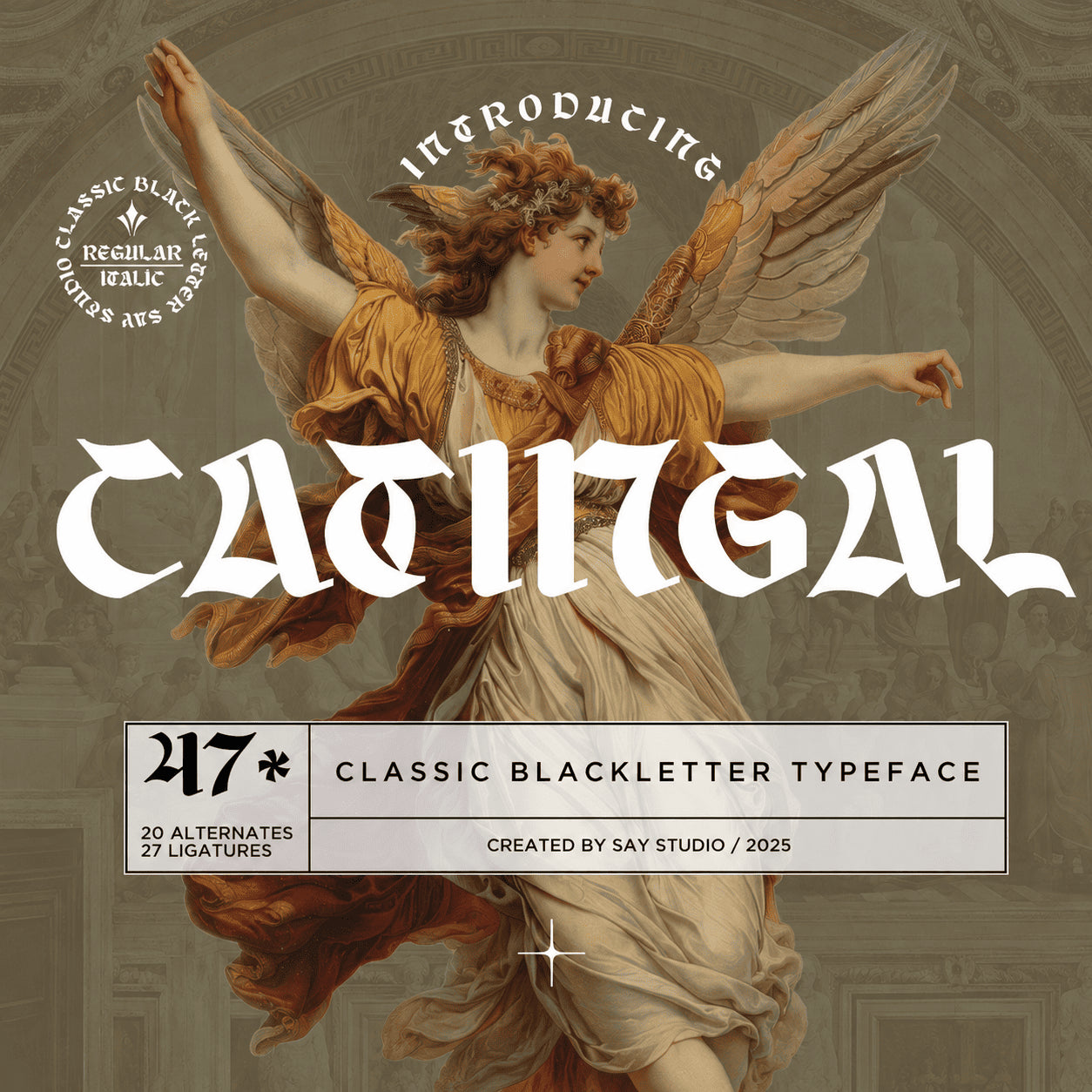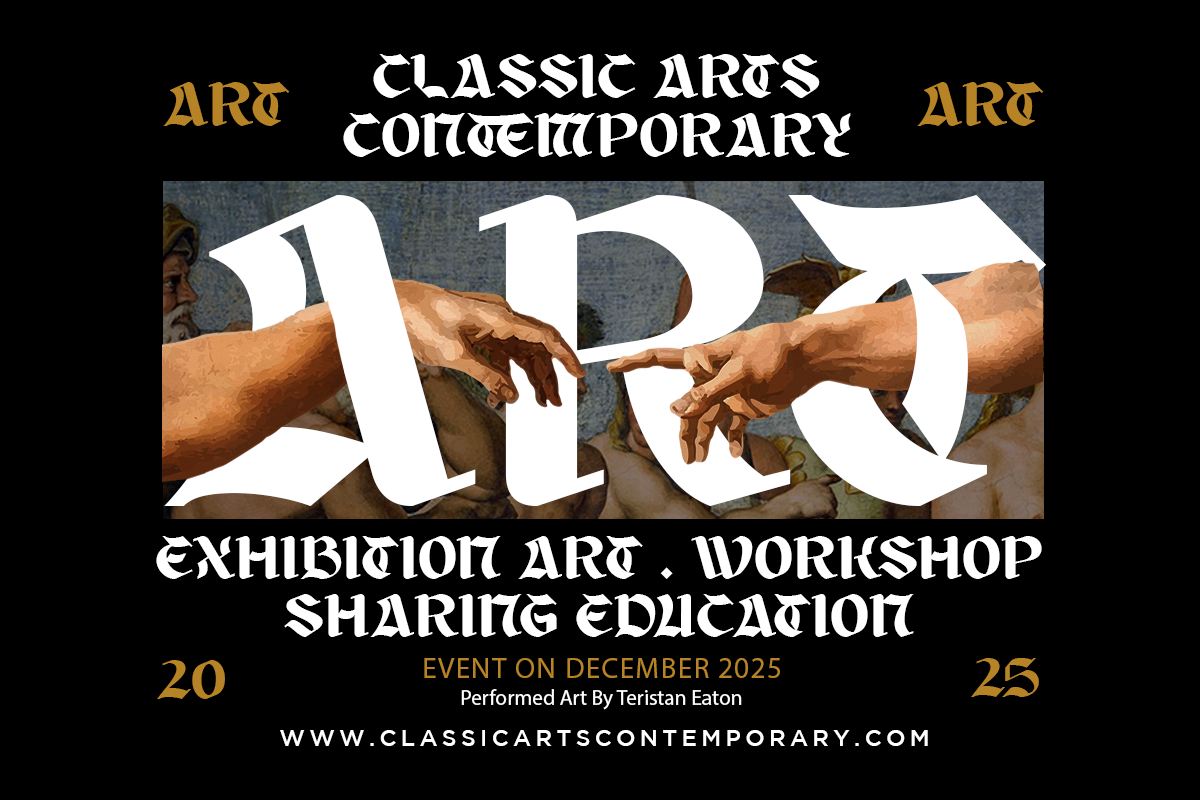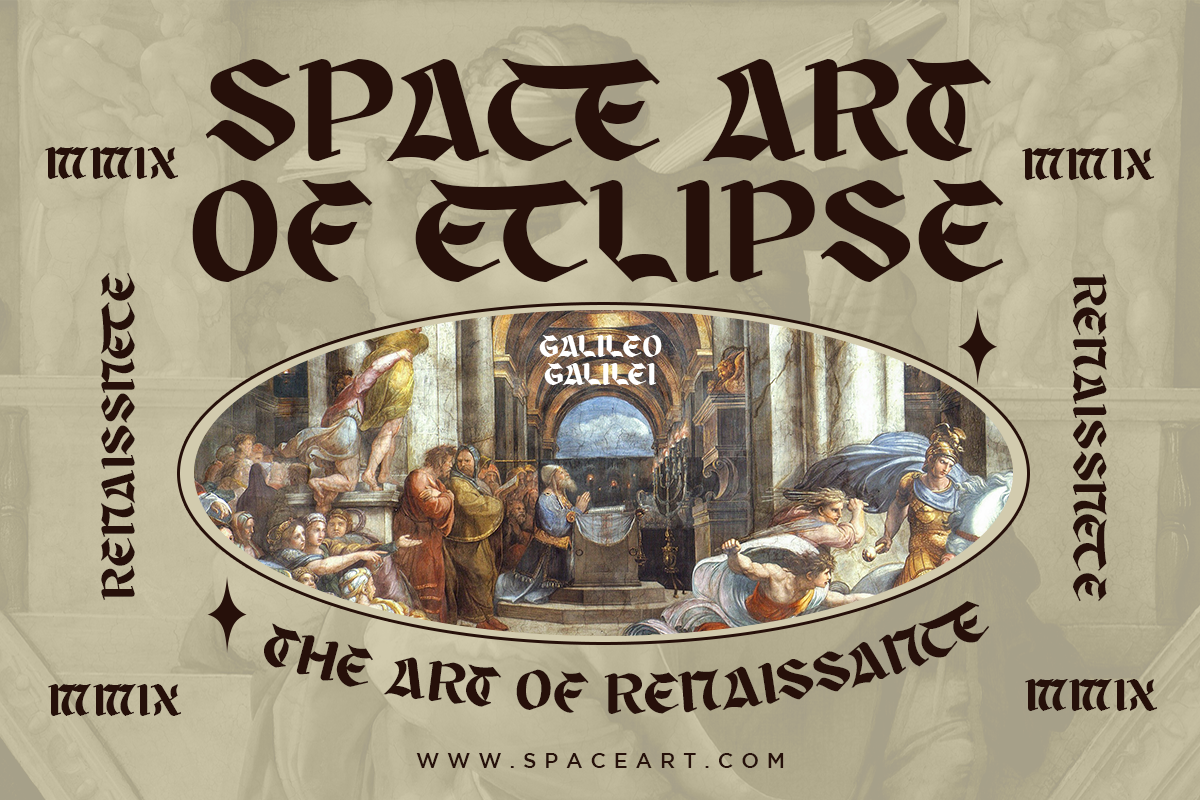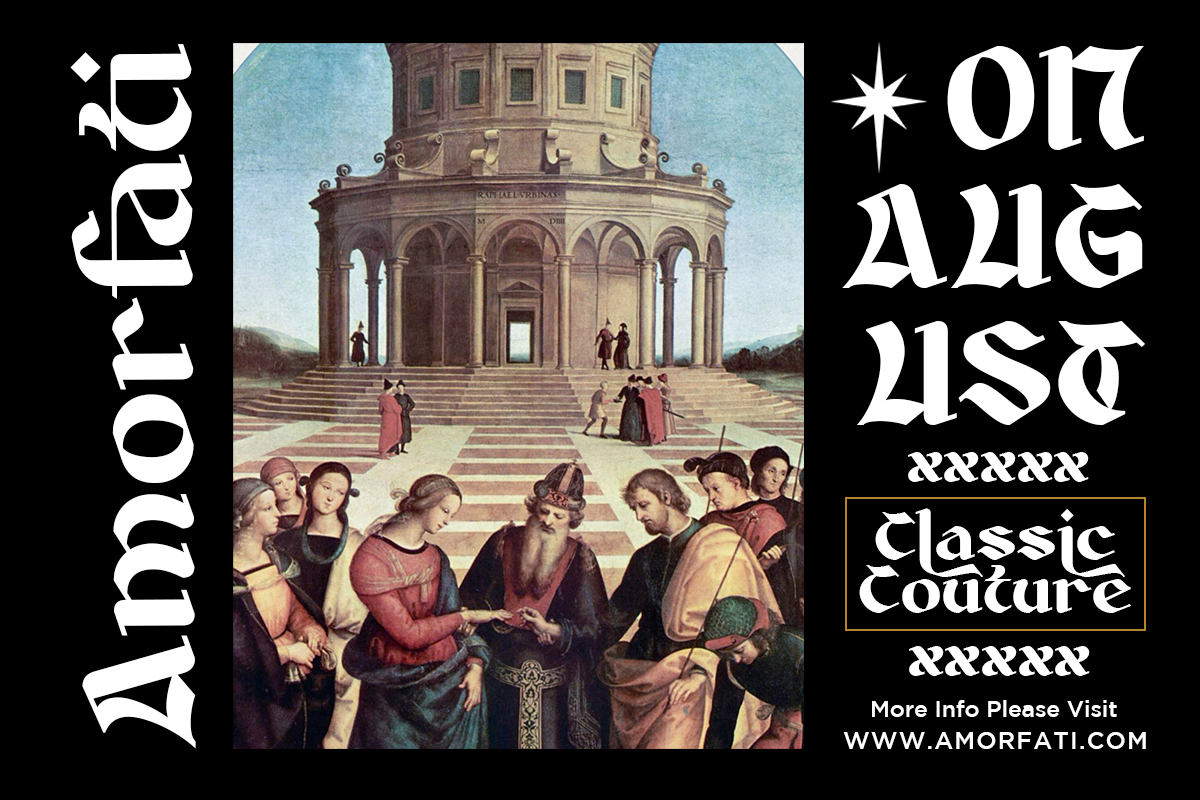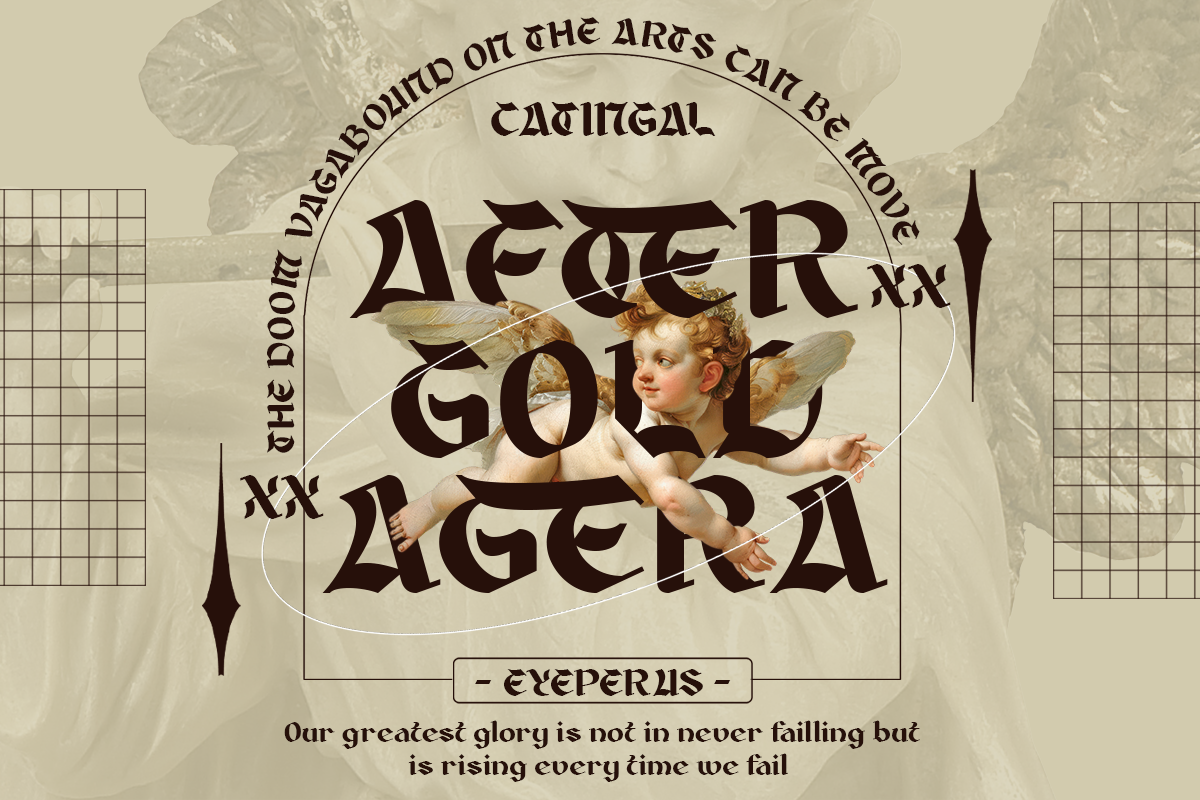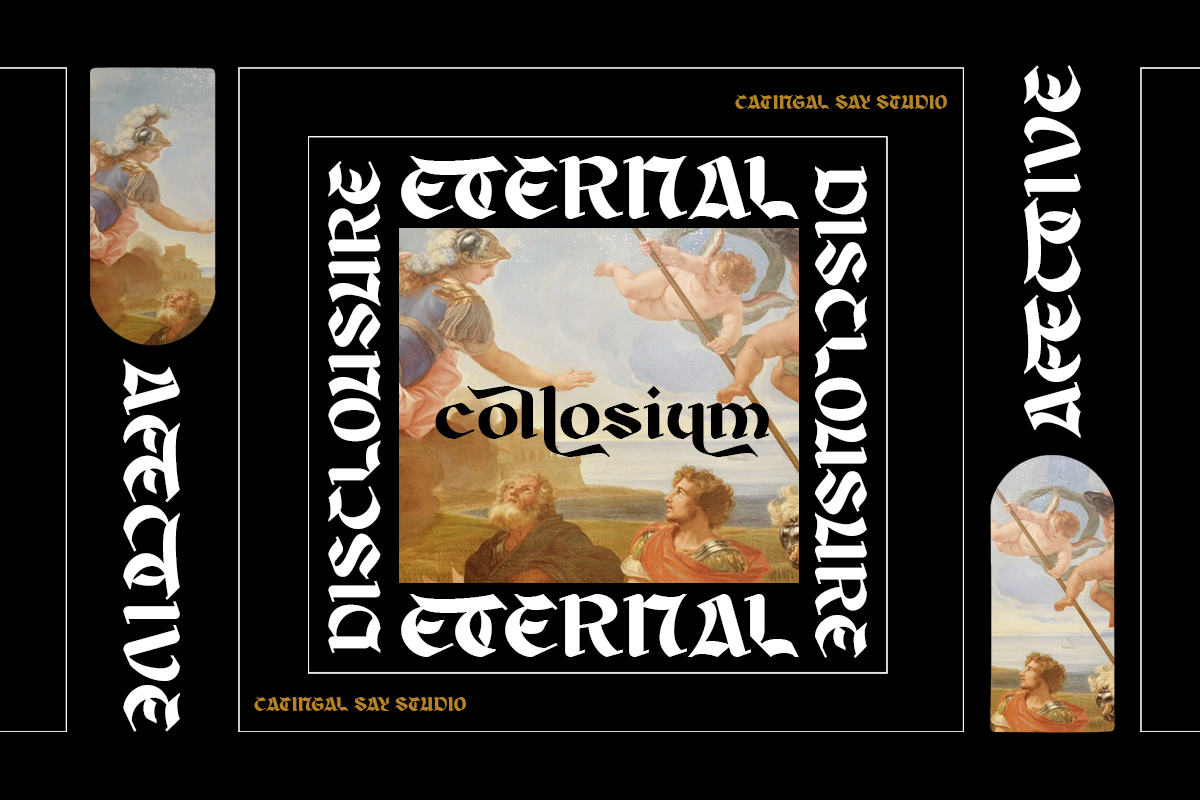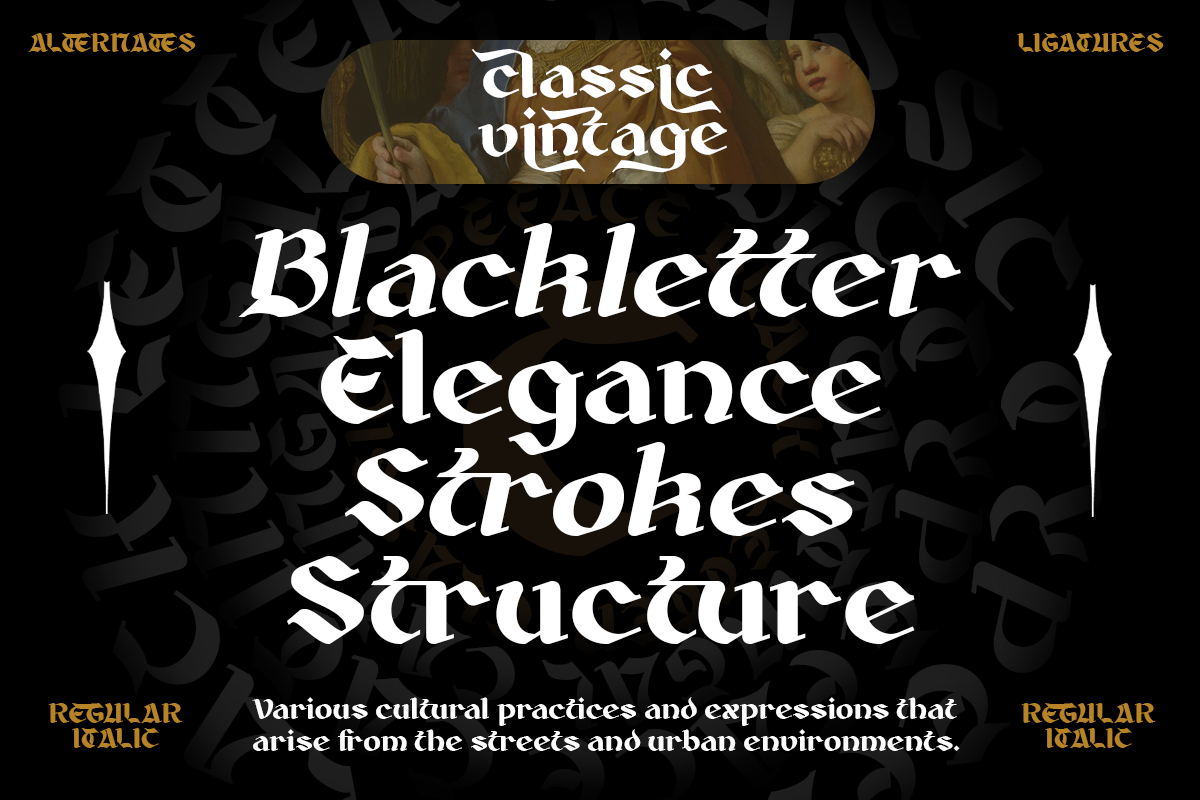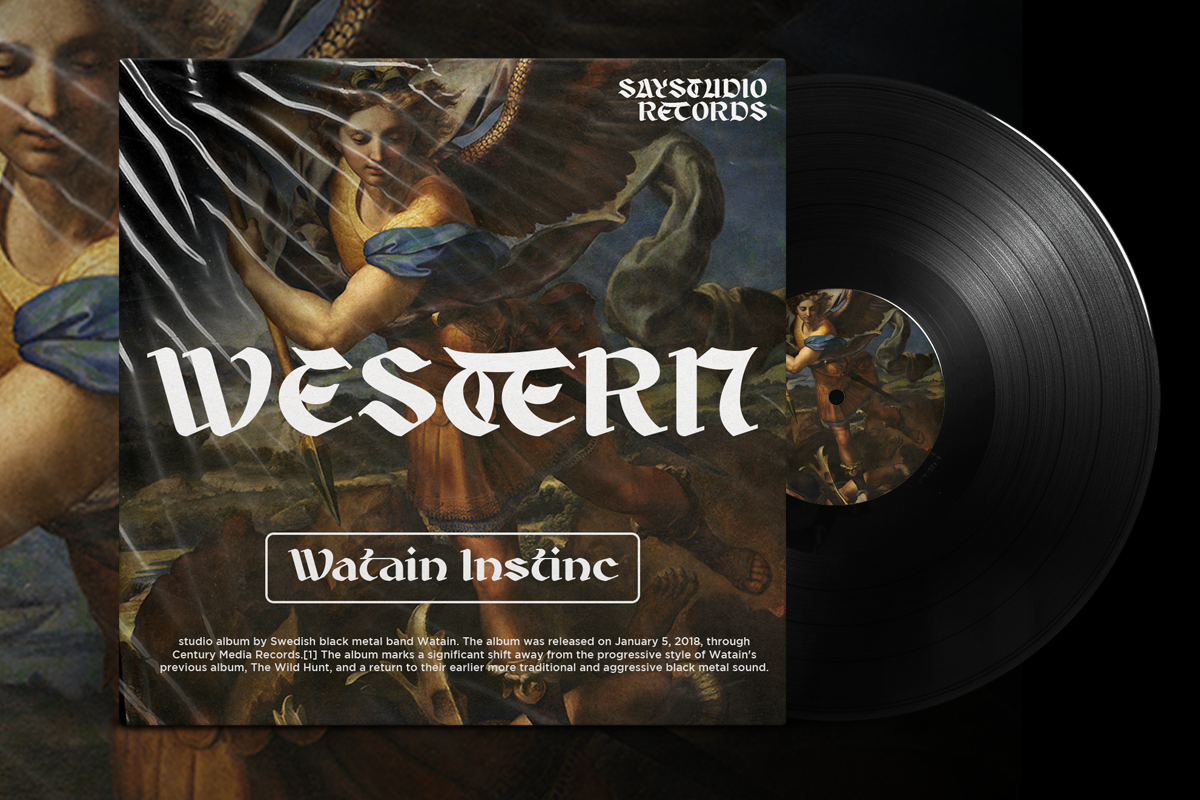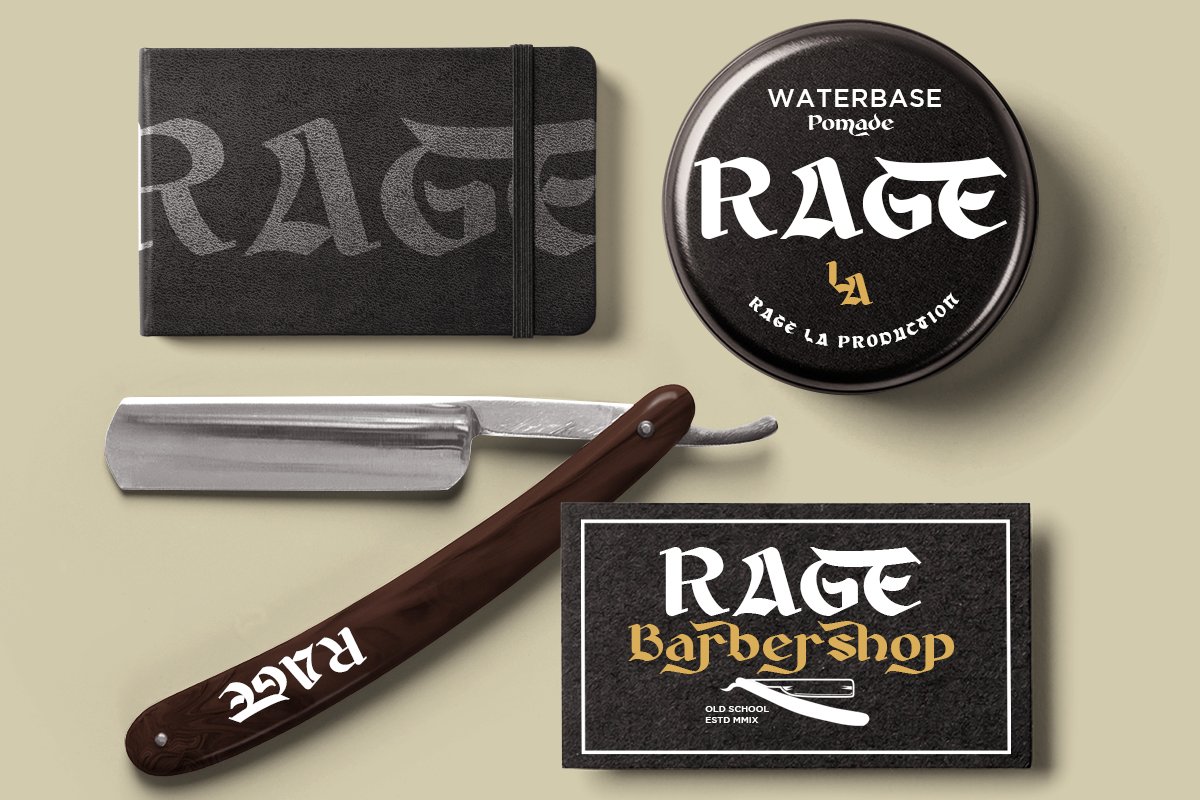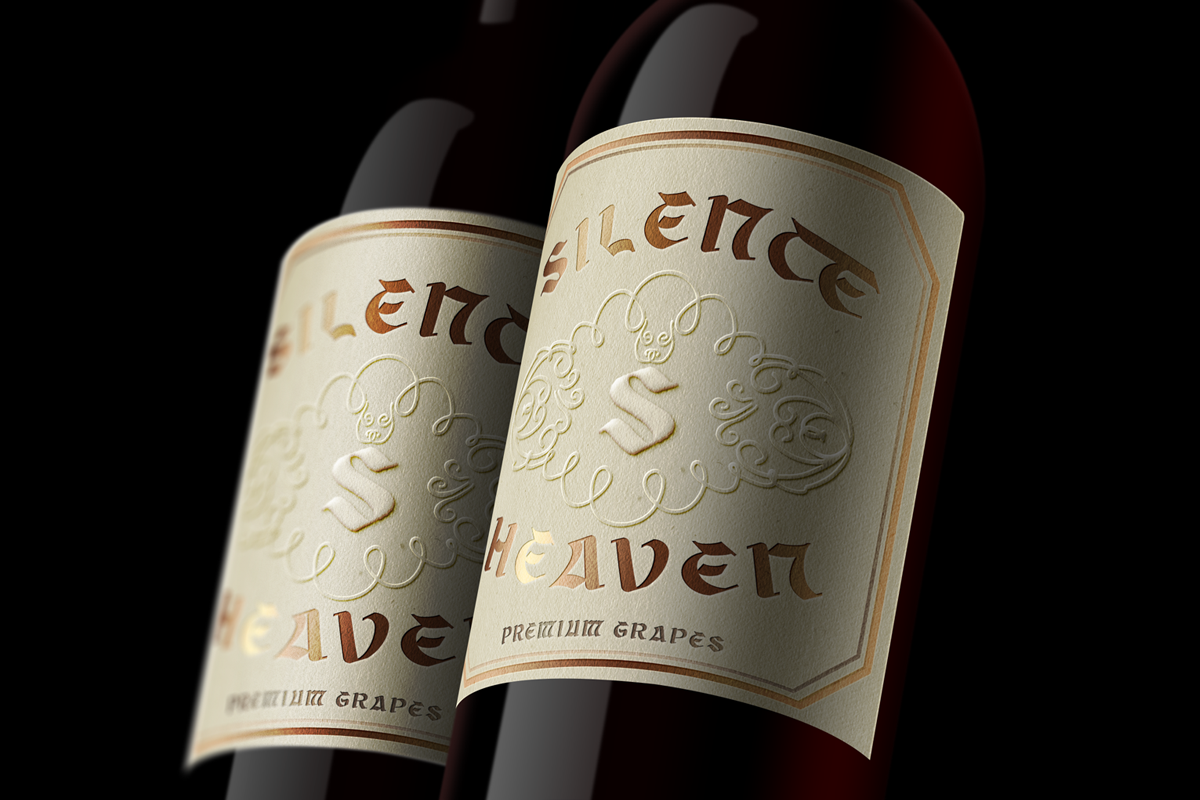
Caatingal - Classic Blackletter Display Font
Catingal is a classic blackletter typeface inspired by medieval manuscripts, Gothic calligraphy, and Renaissance artistry. Featuring sharp strokes, elegant curves, and authentic blackletter details, this typeface blends historical aesthetics with contemporary usability. Complete with regular and italic styles, over 20 alternate characters, 27 ligatures, multilingual support, numerals, and symbols, Catingal offers exceptional flexibility for premium typography projects.
Crafted for sophisticated branding and artistic expression, Catingal is ideal for luxury logos, editorial headlines, book covers, album artwork, wine labels, tattoo studios, barbershops, fashion branding, historical events, certificates, invitations, and premium packaging. Its distinctive Gothic letterforms create a powerful visual presence while maintaining excellent readability for display applications across both print and digital media.
Whether you're designing medieval-inspired identities, Renaissance-themed artwork, premium branding, metal band merchandise, luxury products, or elegant editorial layouts, Catingal delivers timeless craftsmanship and dramatic visual impact. The rich collection of alternate characters and ligatures allows designers to create authentic custom lettering with refined blackletter elegance for memorable creative projects.
Stylistic Ligature
Stylistic Alternate
Multi Language Support
Caatingal is a classic blackletter display font inspired by medieval manuscripts and Gothic calligraphy, featuring sharp strokes and elegant curves. It includes regular and italic styles, over 20 alternate characters, 27 ligatures, multilingual support, numerals, and symbols, available in OTF, TTF, and WOFF formats.